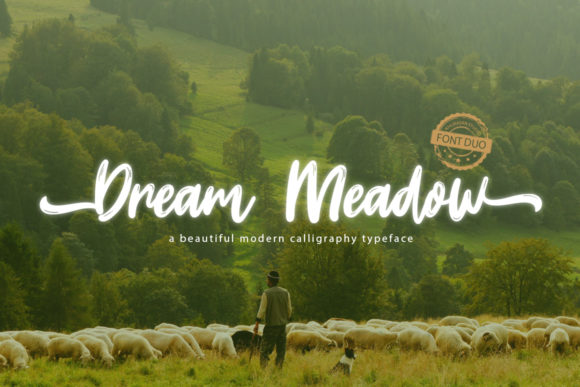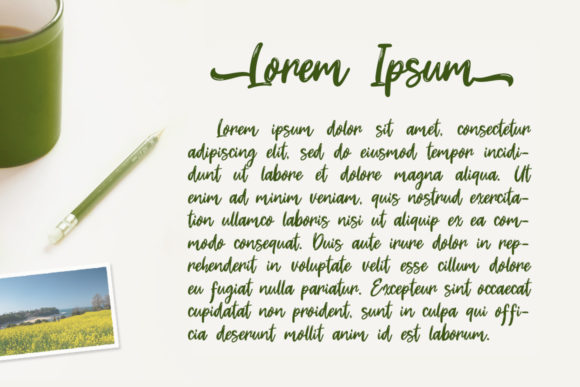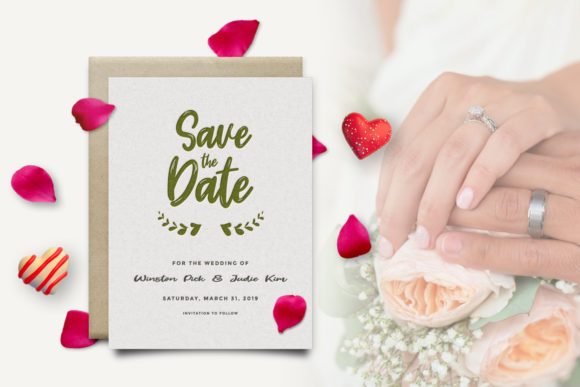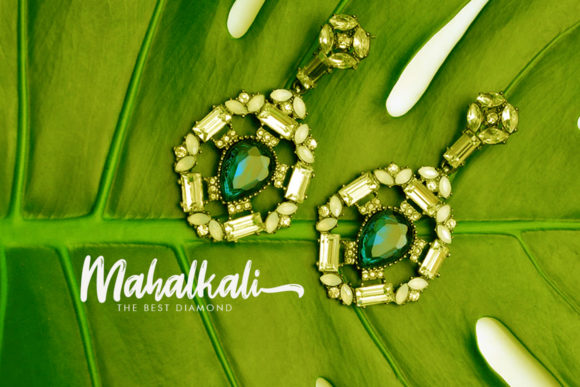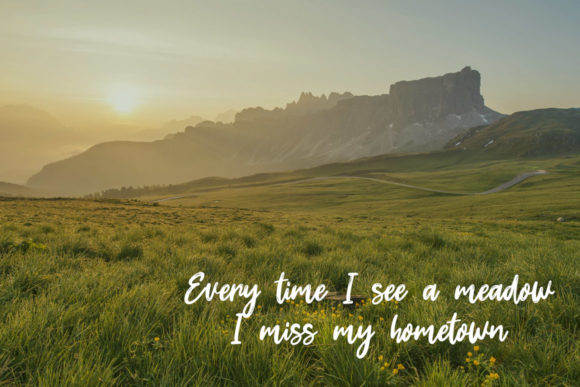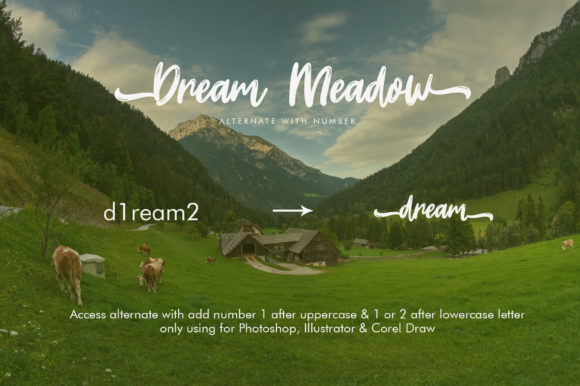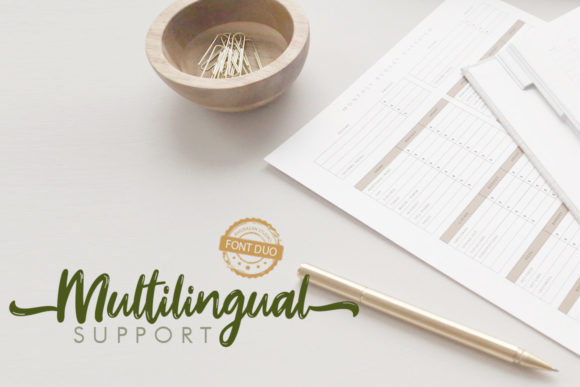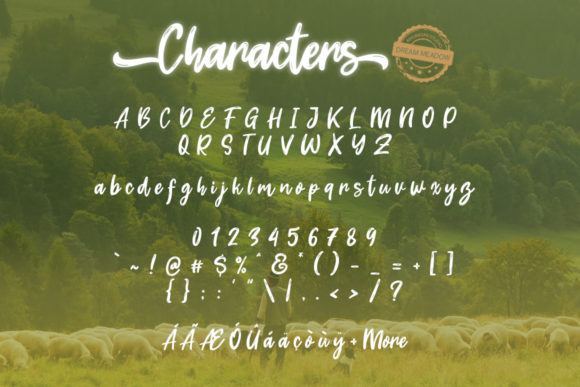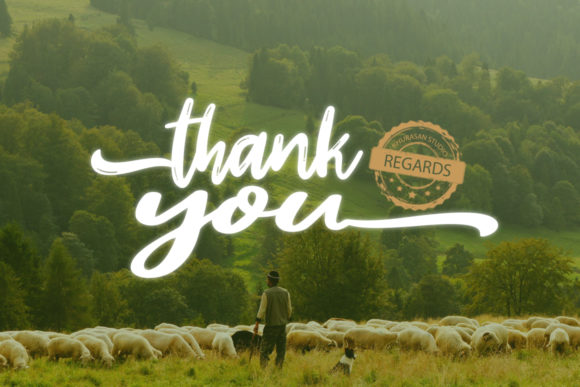
Dream Meadow Font
About Dream Meadow Font
Dream Meadow is a modern calligraphy font duo. It has a fun feel and is perfect for adding a cheerful touch to your designs.